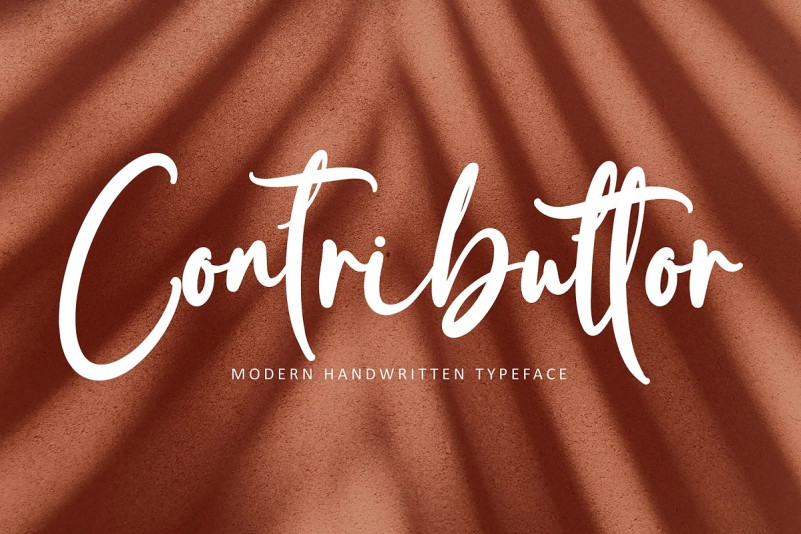
Contributtor Font
Contributor font with new style, this font will perfect for many different project ex: quotes, logo, blog header, poster, banding, letter, invitation, stationery, etc…